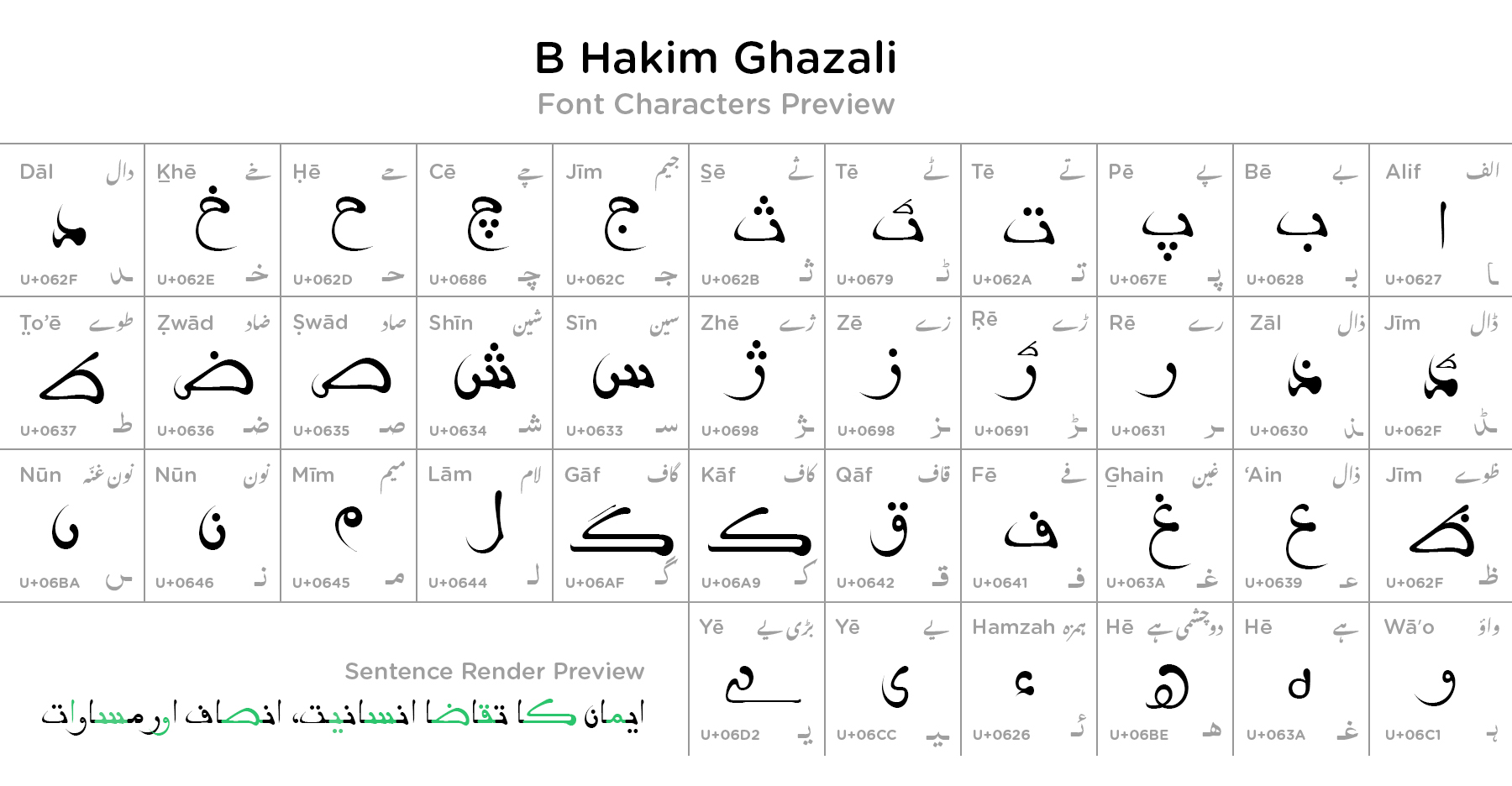
B Hakim Ghazali
B Hakim Ghazali is a traditional Arabic calligraphic style font.  It has a flowing, elegant, and decorative nature. This True Type font was designed by Hakin Ghazali in 2005 and has 550 number of glyphs. The strokes are mostly thin. They have a smooth and continuous flow without any sudden changes in direction. The edges of the strokes are slightly tapered. The font has an ink-spread look as if the letters were written with a brush or pen that is dipped in thick ink. The individual letters don’t have a perfectly regular shape. They appear slightly distorted or stretched in some areas, adding to the organic and free-flowing nature of the font. They vary in thickness, further enhancing their visual appeal. All these features are creating a sense of movement and fluidity in it. The spacing between the letters is consistent and well-balanced. This ensures readability and prevents the letters from appearing crowded or too spaced out.